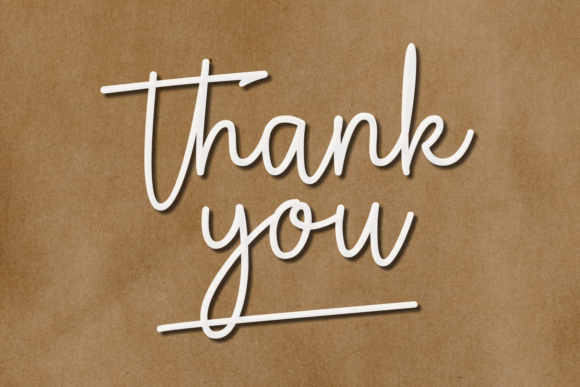
Introduction to Kita Font
Remember that moment when you stumbled upon the perfect font for your creative project? The excitement, the thrill, the satisfaction of knowing that your design is going to be truly special? That’s exactly what happened to many designers when they discovered the Kita Font. This elegant and graceful script font is a game-changer for any design project that requires a touch of sophistication and romance.
As a valuable resource for designers, the Kita Font offers a high-quality solution for those looking to elevate their designs. Whether you’re working on a wedding invitation, a romantic card, or any other creative project, this font is sure to impress. With its beautiful, flowing script, the Kita Font adds a personal touch to any design, making it a must-have for any designer’s toolkit.
Key Features of Kita Font
- High-quality design resource with a modern and elegant aesthetic, perfect for creative projects.
- Comes with a transparent background, allowing for easy customization and integration into various designs.
- Designed to be highly legible, making it ideal for use in a variety of creative projects, from logos to digital art.
Kita Font is a high-quality design resource that offers a unique and stylish aesthetic. With a transparent background, this font is perfect for creative projects that require a touch of sophistication.
Kita Font is perfect for a variety of creative projects, including:
- Business cards and stationery
- Graphic design and visual art